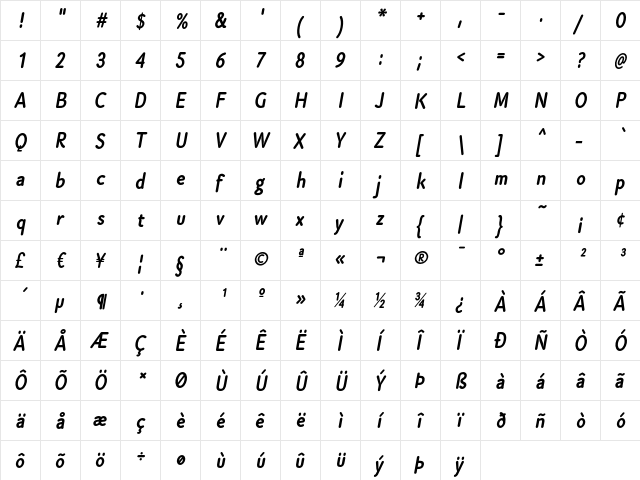
Cen Pro Bold Italic
| Foundry | Neil Summerour/Positype |
| Designer | Neil Summerour |
Design Context for Cen Pro Typeface
Cen Pro takes a measured approach to typography — its balanced proportions and neutral character make it a reliable workhorse for both digital and print work. Its italic angle brings a sense of urgency and motion to the letterforms. The heavy weight commands attention and anchors typographic hierarchies.
Pro Tip: Use Cen Pro for emphasis, pull quotes, and subheadings where its slanted energy can add rhythm to the layout.